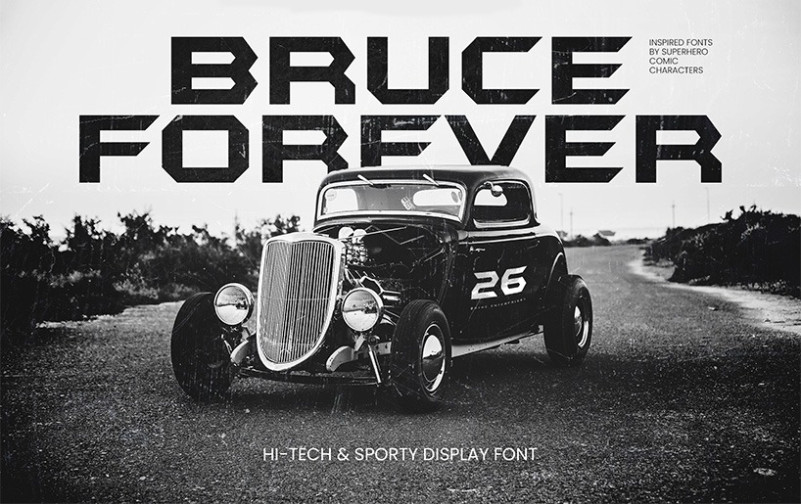
Bruce Forever Font
Bruce Forever Display Font is a display font that took the Batman Forever movie from 1995 as inspiration. Yes, you can call it Batman Forever Font if you want to.
We can use Bruce Forever to showcase a product or commercial material. Not only for products, but you can also use it for display text such as making a poster, landing page, or even logo.
The characteristic of this font is that it has sharp curves along the letters that make it look serious to read. We can unlock the true potential of this font by using design applications.
If you can use it properly, that serious vibe that the font had will turn into something interesting for your products or things that you want to showcase with the font. Of course, with the influence of the batman fonts, this font will easily recognize because of the movie.